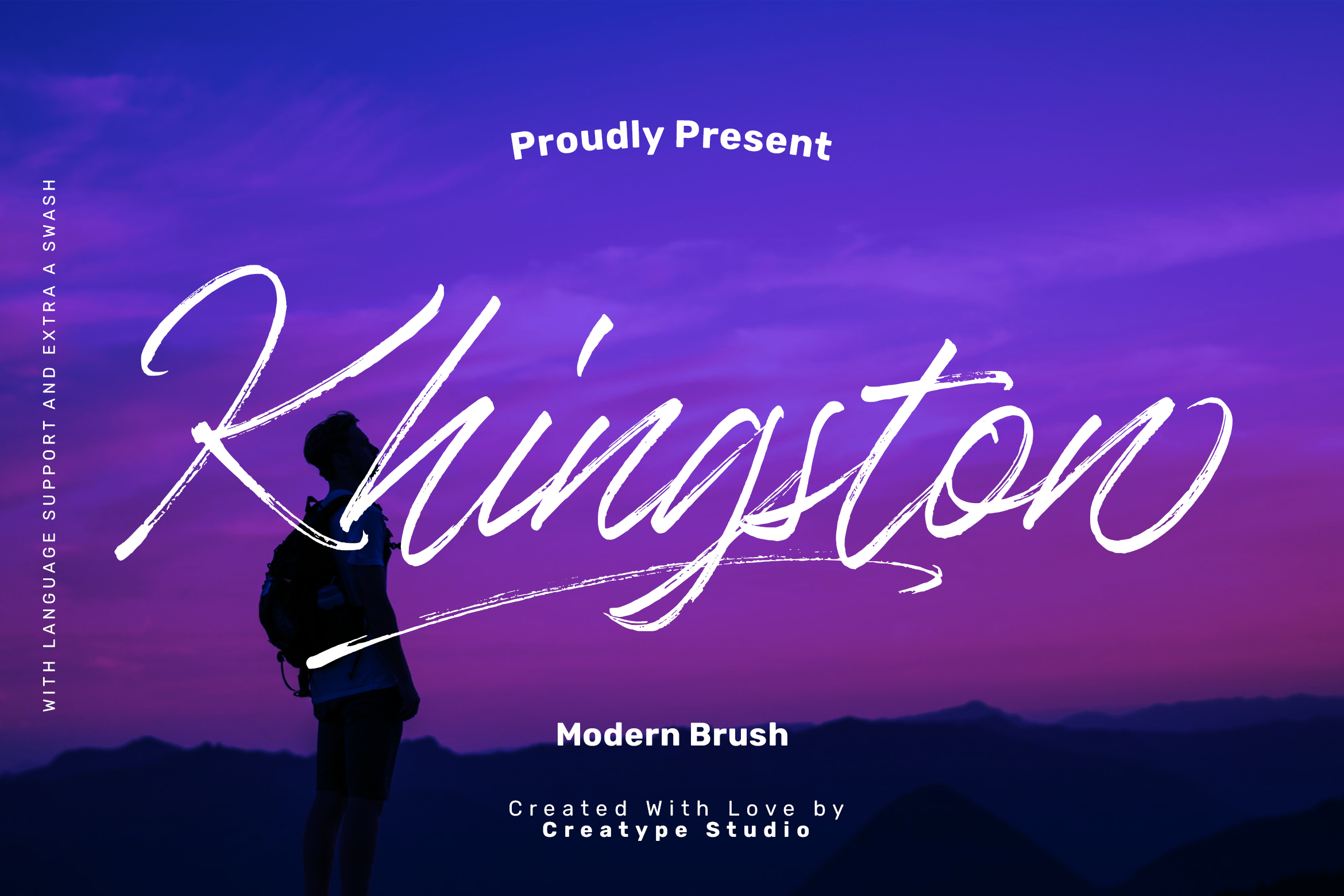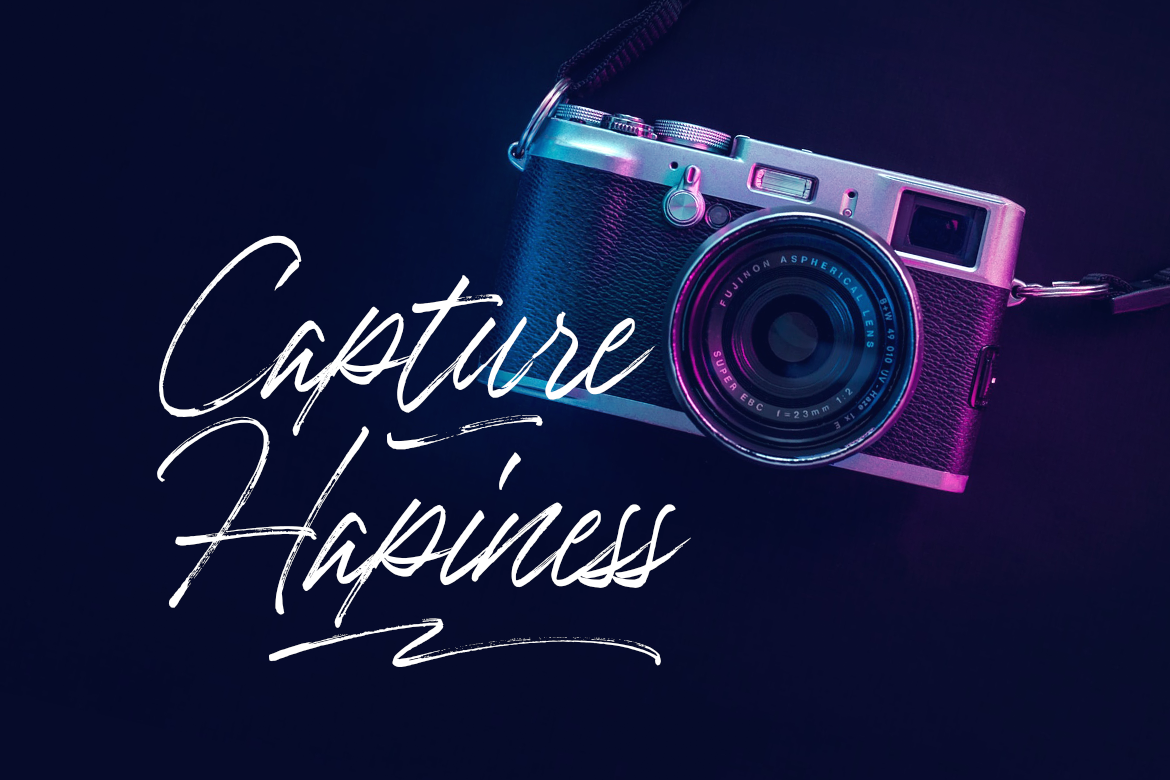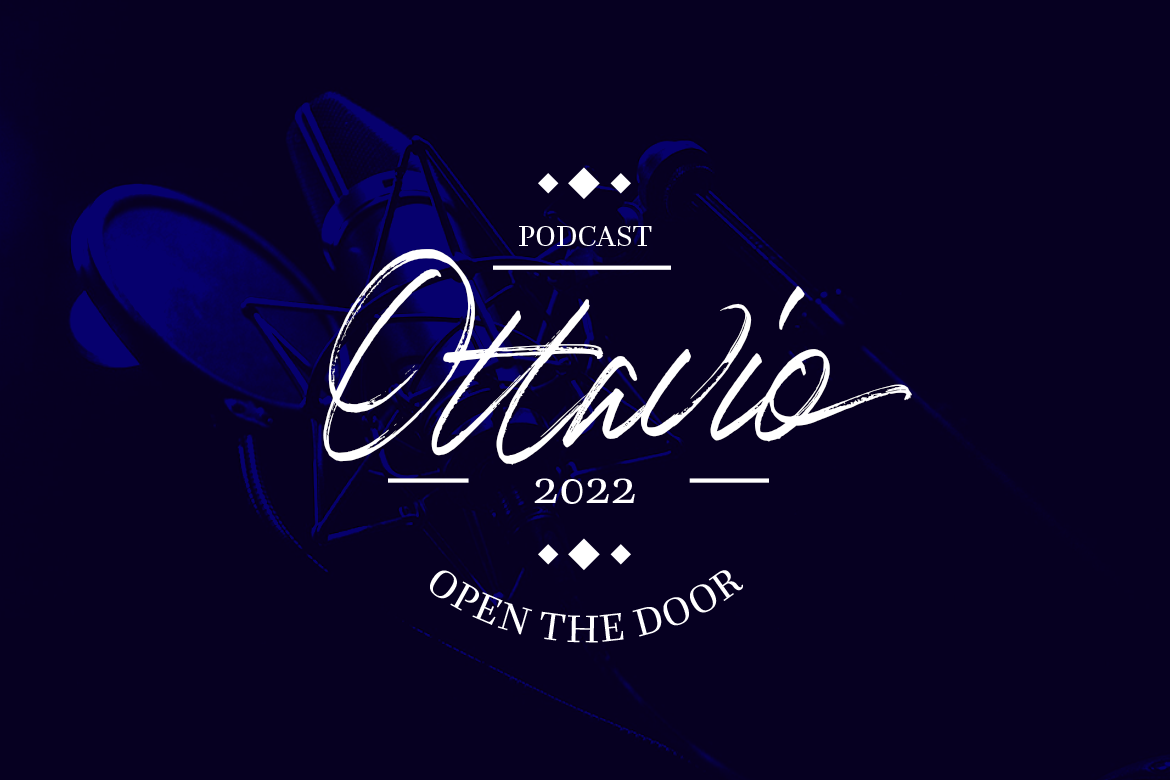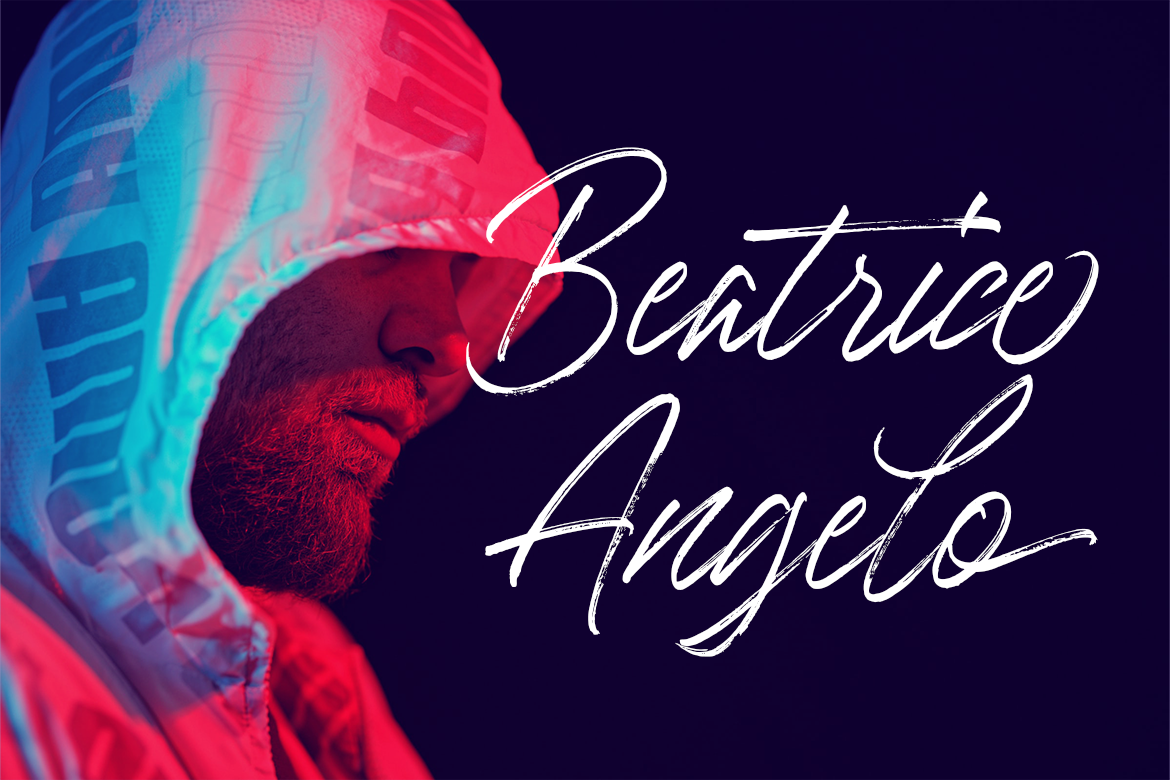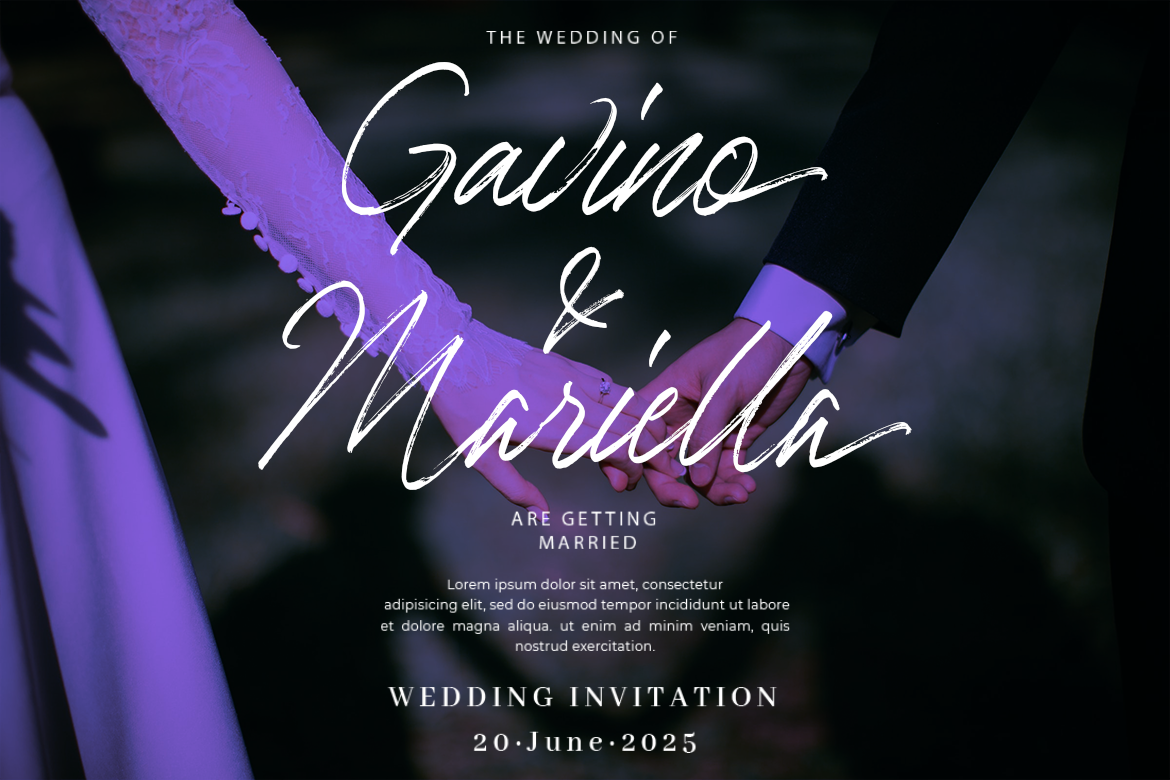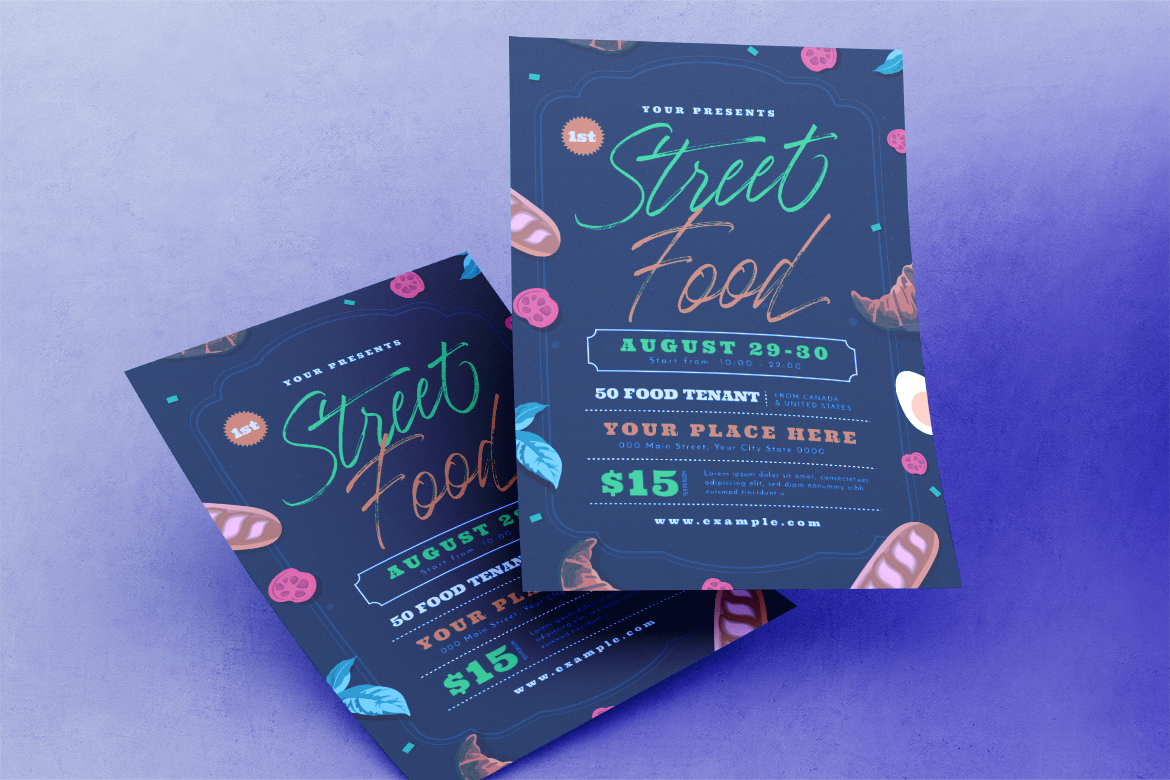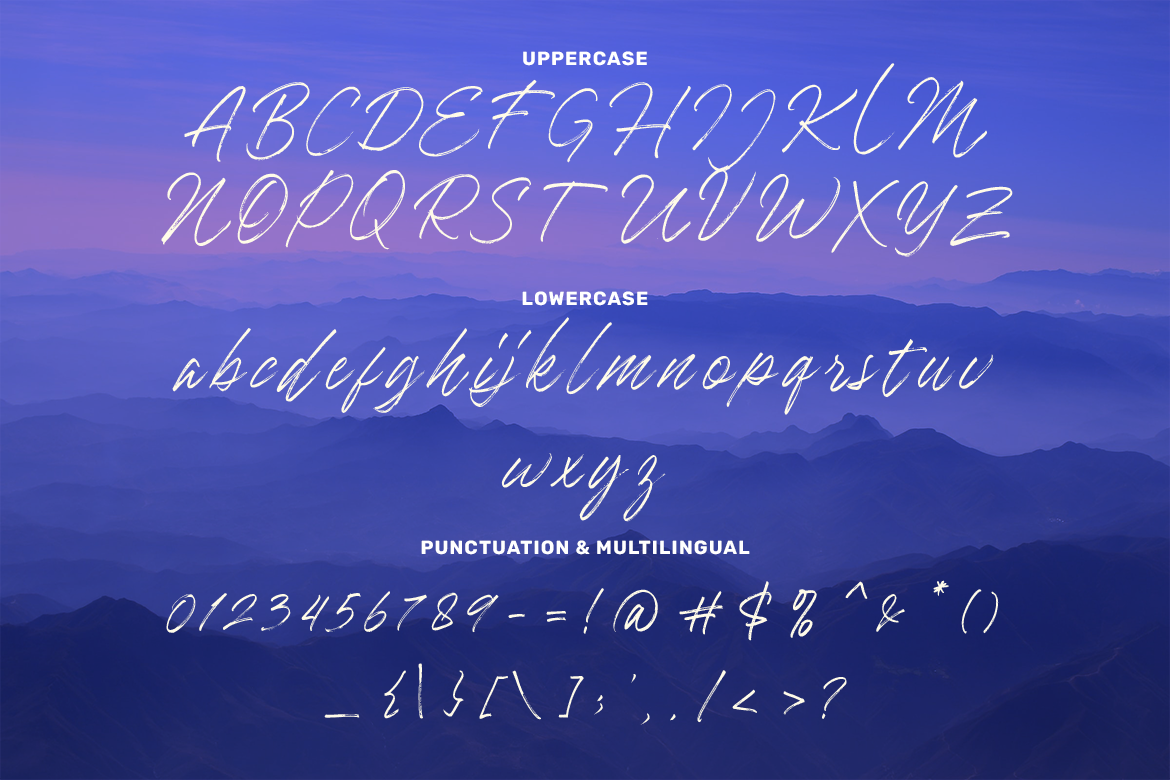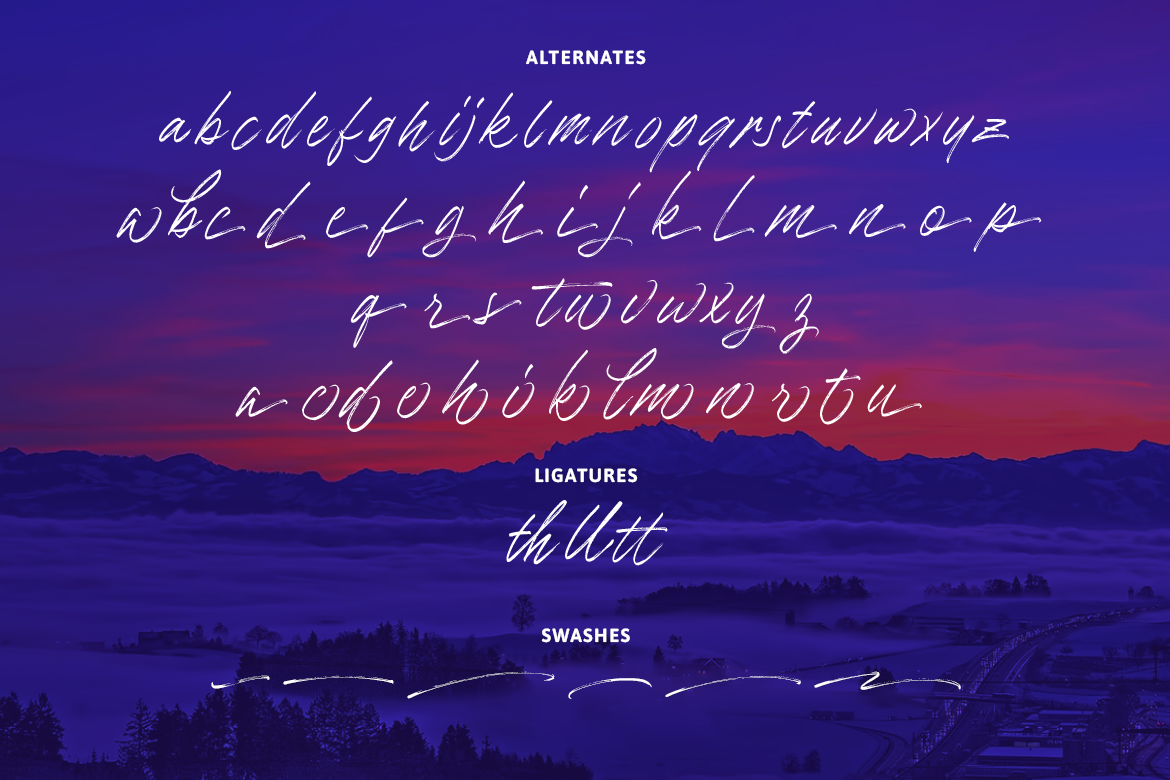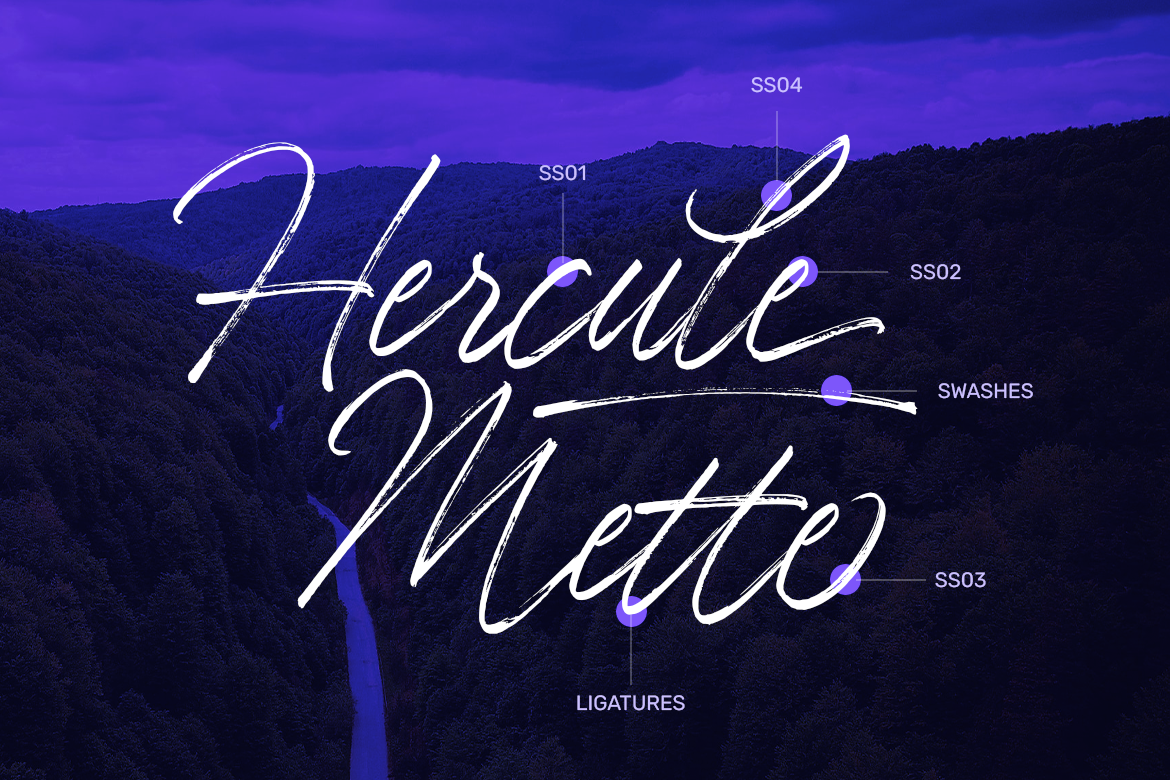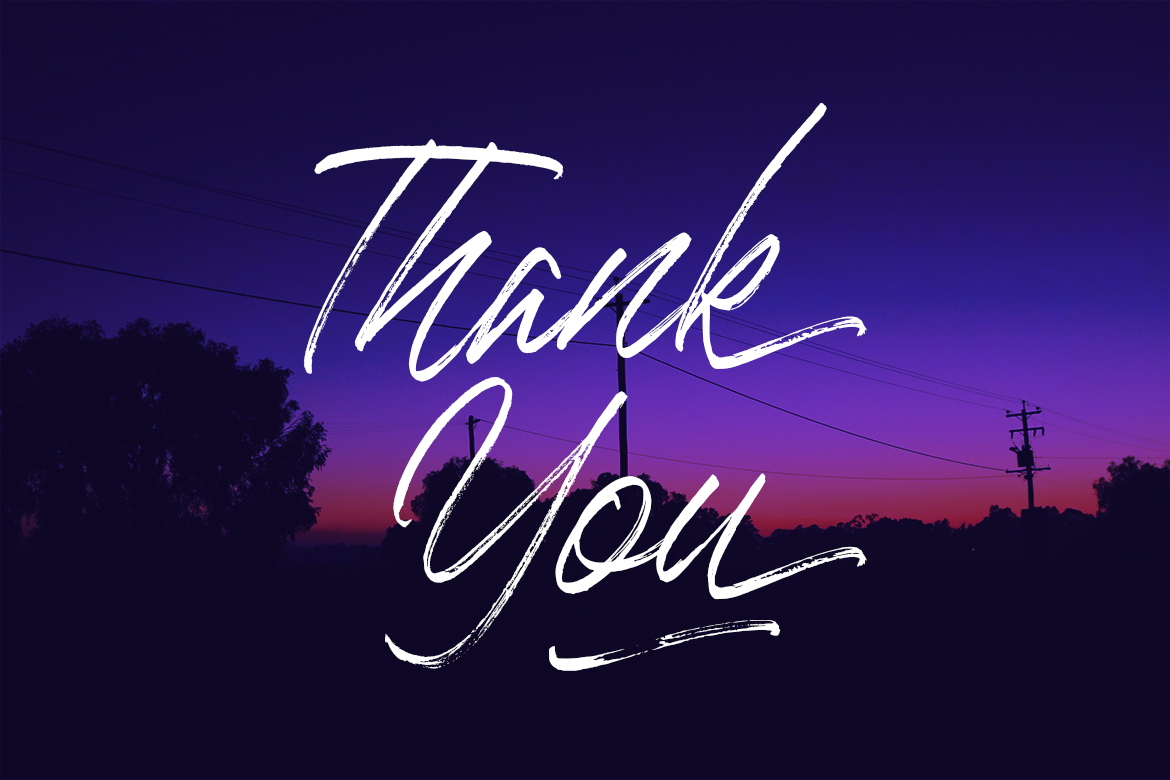
Khingston is a modern brush font with attractive details. The brush effect gives friendly and attractive vibes. Level up your design by using this typeface!
Khingston is perfect for branding projects, logo, wedding designs, social media posts, advertisements, product packaging, product designs, label, photography, watermark, invitation, stationery and any projects that need handwriting taste.
Khingston Brush Script Font